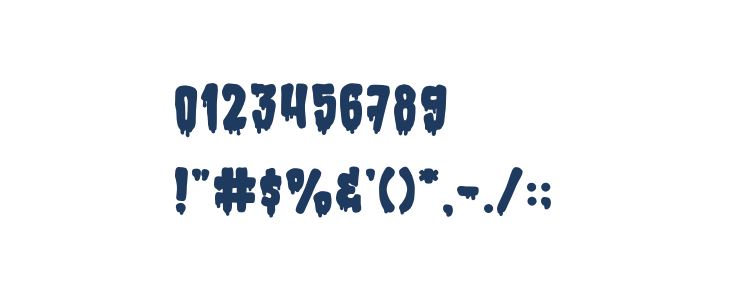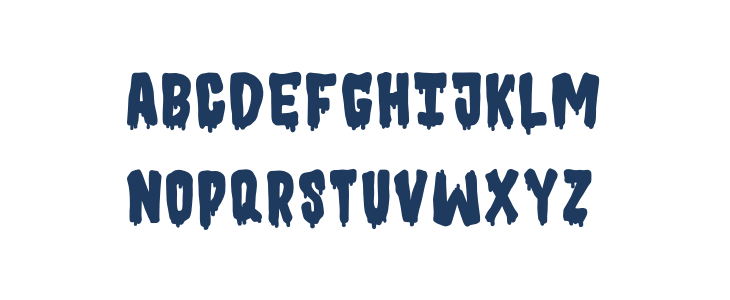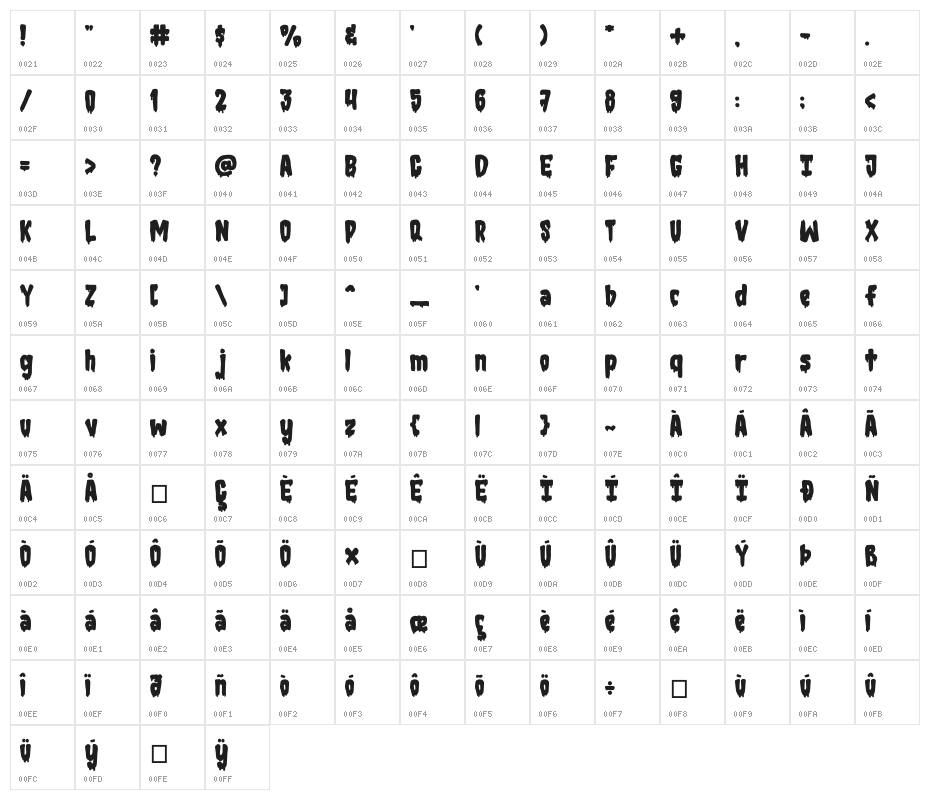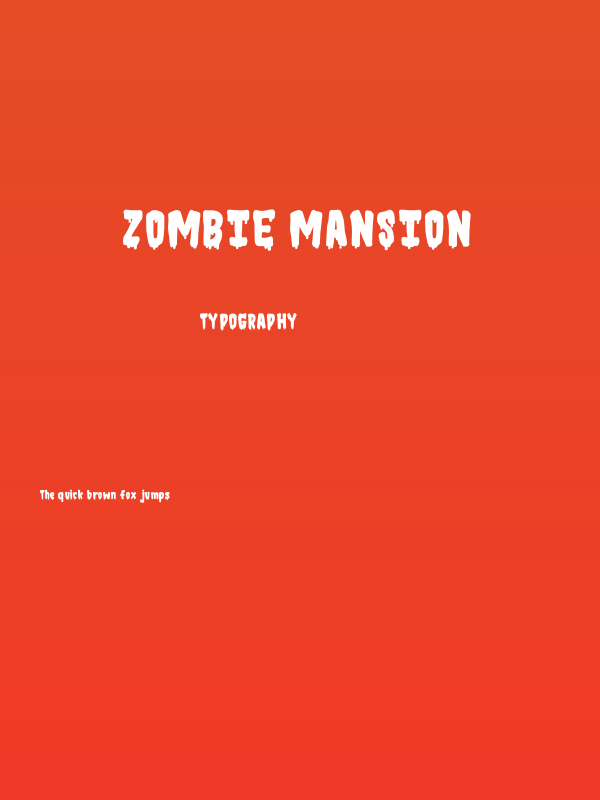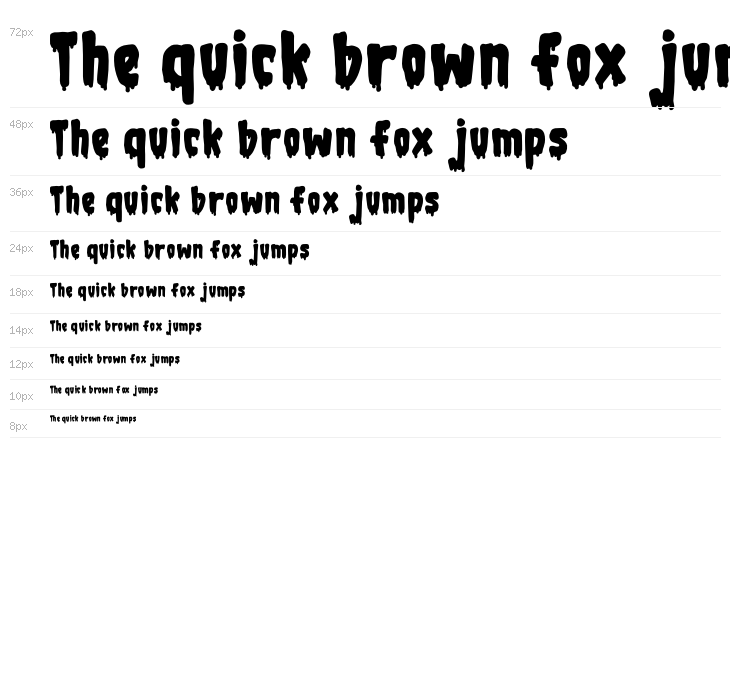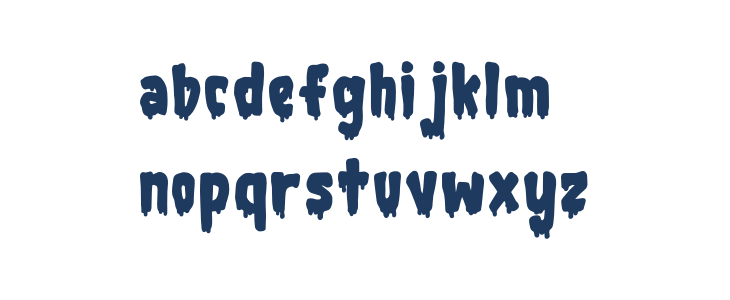
ZOMBIE MANSION Font
ZOMBIE MANSION Description
A bold, decorative display font with irregular, dripping letterforms that evoke a spooky, horror-inspired aesthetic. The characters have uneven edges and a playful, hand-drawn feel, making them stand out for thematic designs.
| Overall Style | Decorative, Horror, Playful |
| Use Case | Headlines, Posters, Event Branding, Logos |
| Proposed Projects | Halloween posters, haunted house signage, party invitations, horror movie titles, themed event branding. |